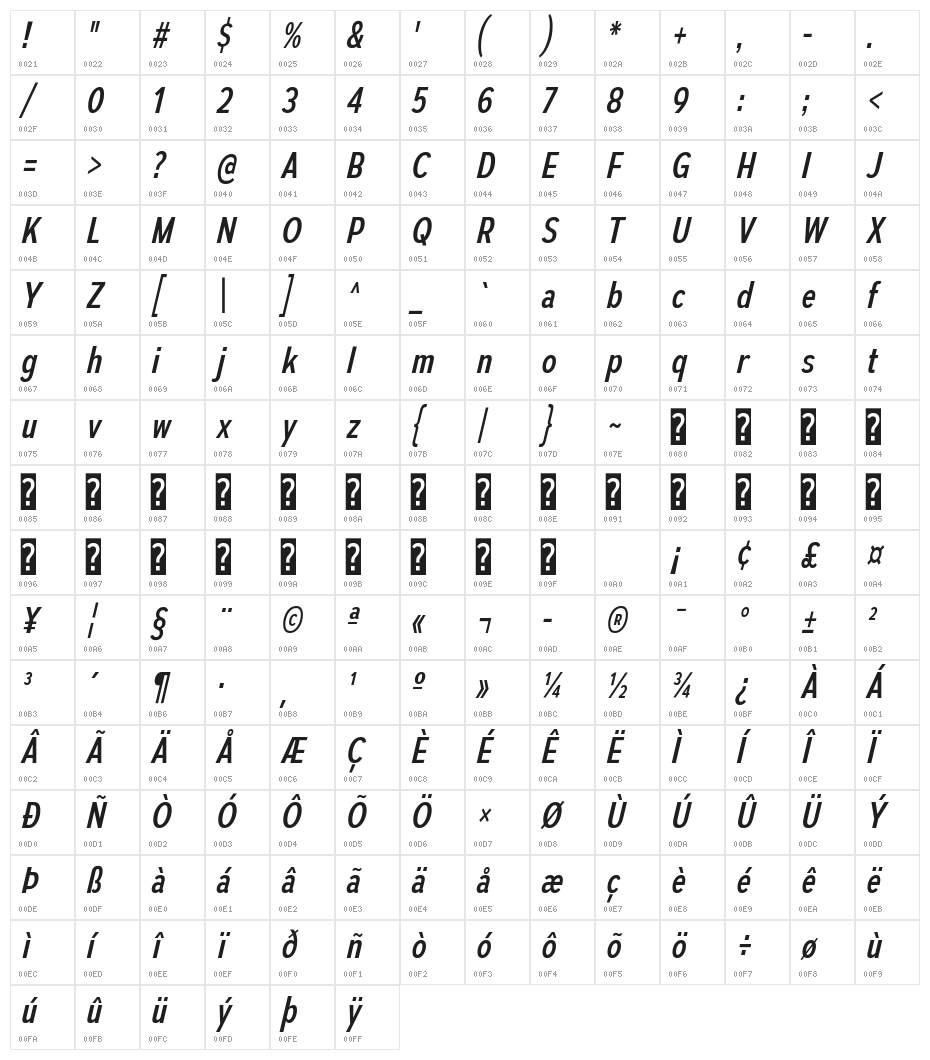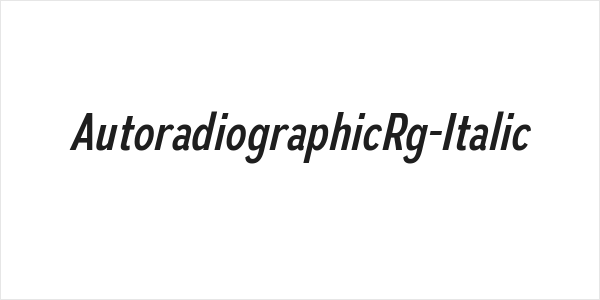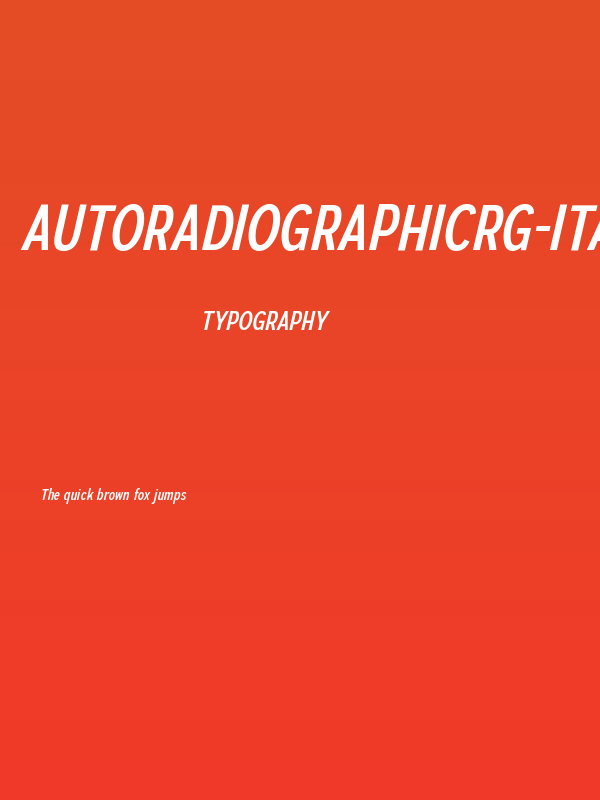
AutoradiographicRg-Italic Font
AutoradiographicRg-Italic Description
This font features a sleek and modern italic style, characterized by its clean lines and slightly condensed form. The letters are slanted, giving a dynamic and forward-moving appearance. The uppercase and lowercase characters maintain a consistent stroke width, providing a uniform look across the typeface. The numerals are clear and easy to read, complementing the overall design. Special characters are well-integrated, maintaining the font's cohesive style. This typeface is versatile, suitable for both digital and print media, offering a professional yet approachable aesthetic.
| Proposed Projects | Ideal for branding, advertising, and editorial design projects that require a modern and dynamic look. |